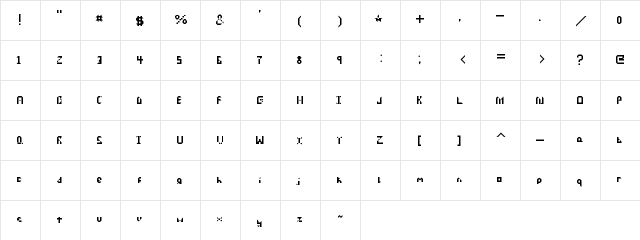
Dispose Regular
Design Context for Dispose Typeface
Dispose takes a measured approach to typography — its balanced proportions and neutral character make it a reliable workhorse for both digital and print work.